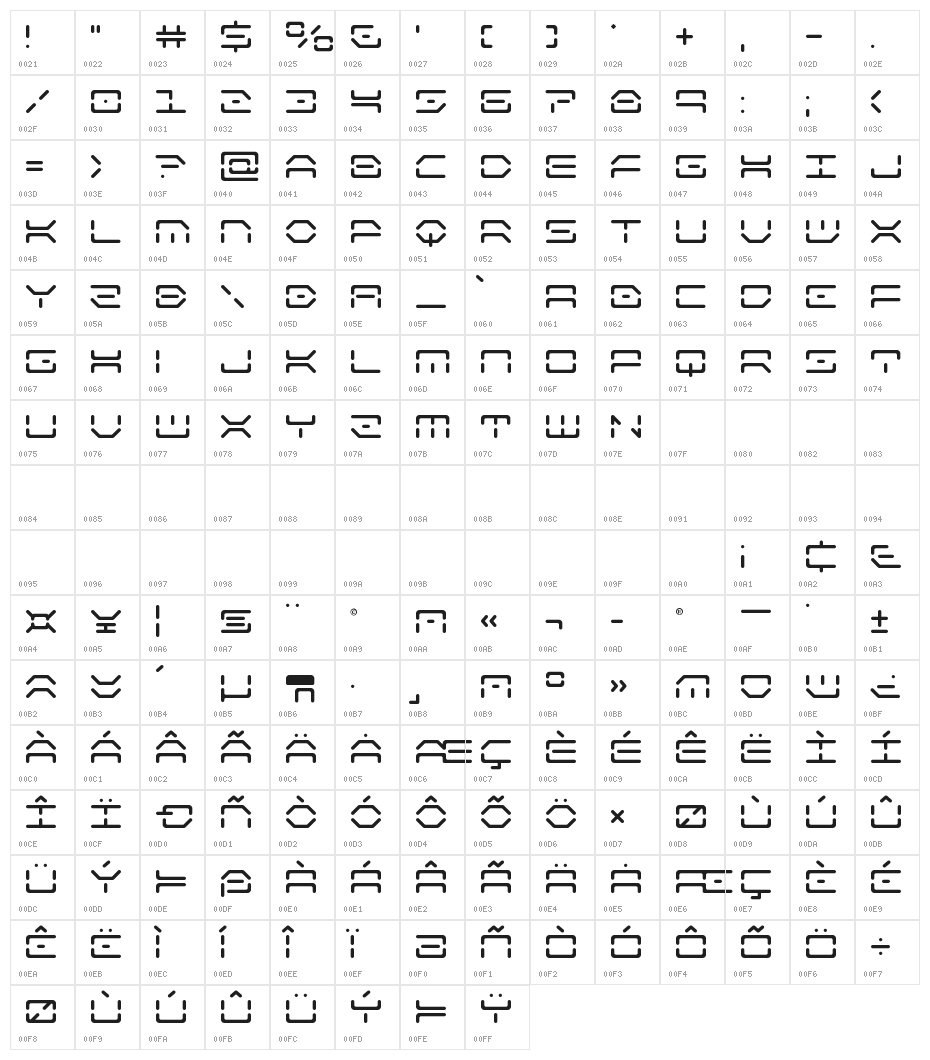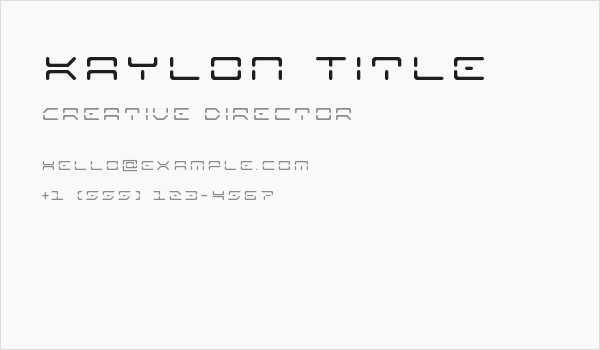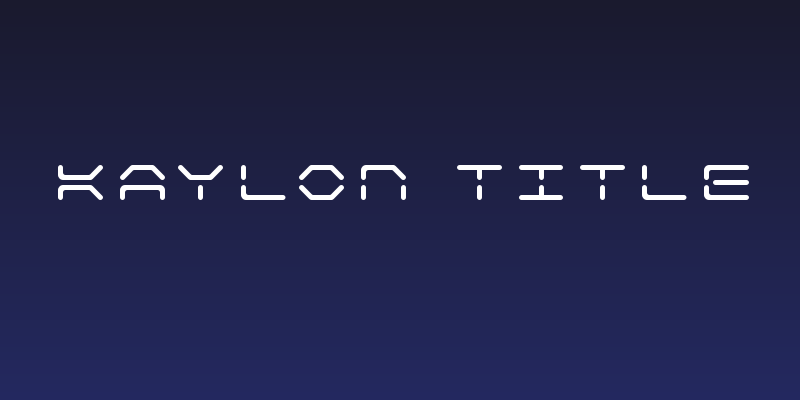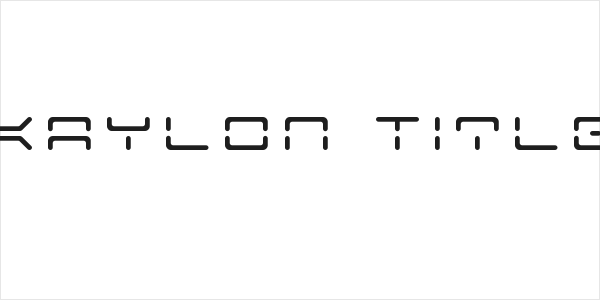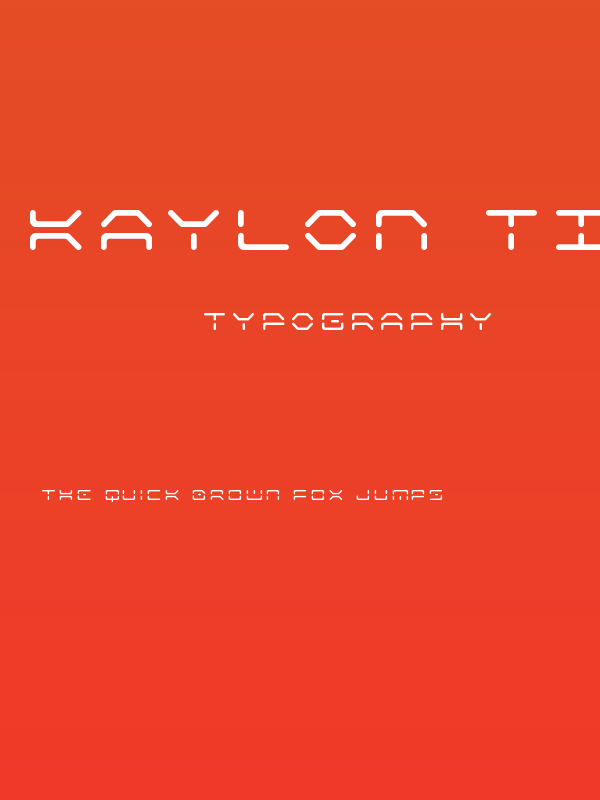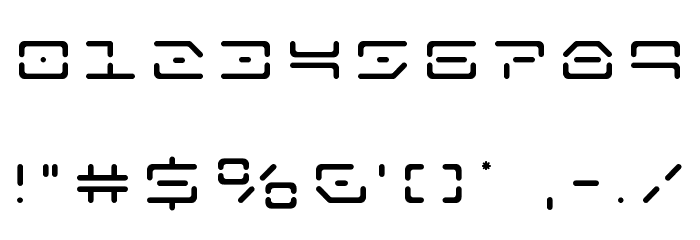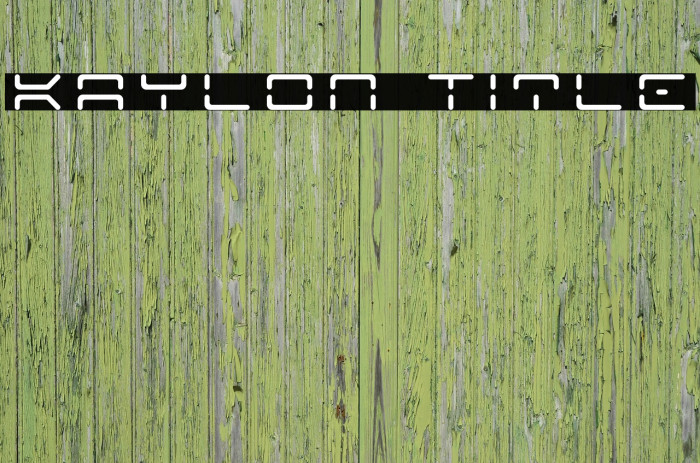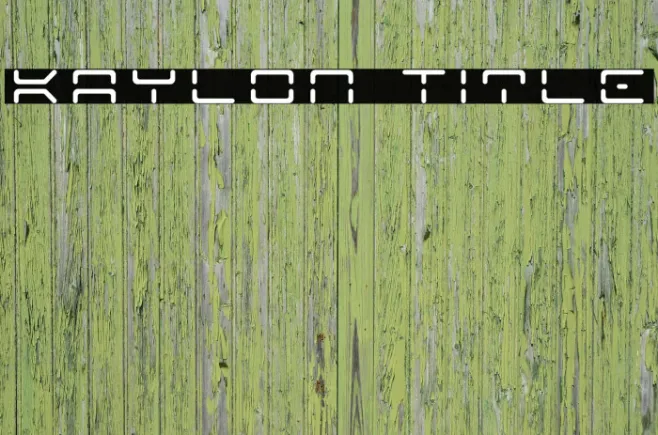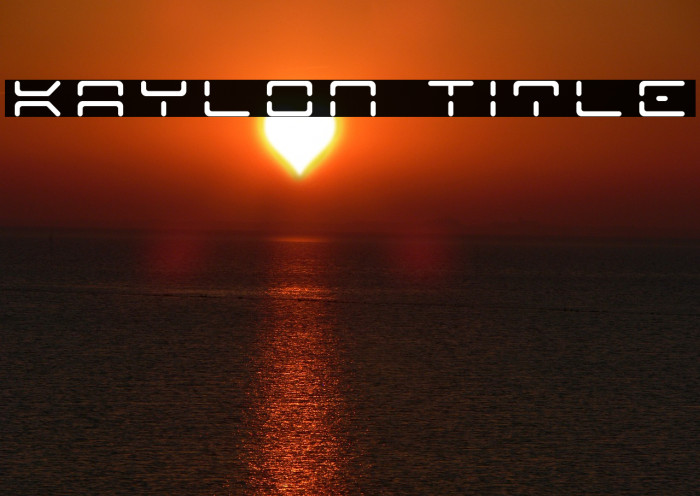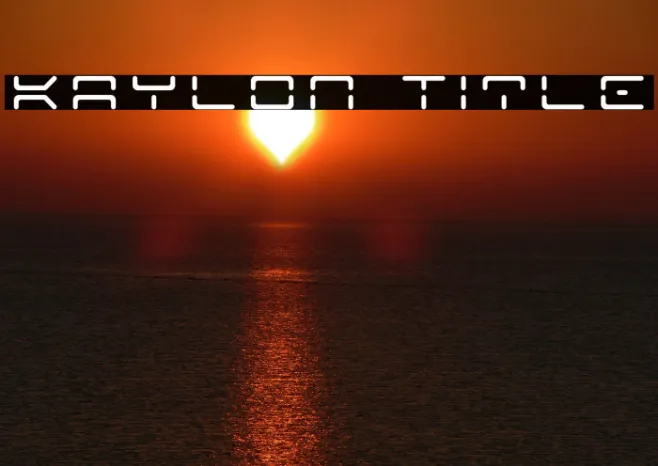
Kaylon Title Font
Kaylon Title Description
This font features a futuristic and geometric design, characterized by its distinct use of rounded edges and cut-out sections within each character. The letters are constructed with a consistent stroke width, giving it a uniform appearance. The design incorporates a modern aesthetic with a touch of minimalism, making it suitable for digital and tech-related projects. The characters are evenly spaced, providing a clean and organized look. The font includes a full set of uppercase and lowercase letters, numbers, and a variety of special characters, ensuring versatility in usage.
| Proposed Projects | Ideal for tech branding, digital interfaces, video game titles, and sci-fi themed designs. |